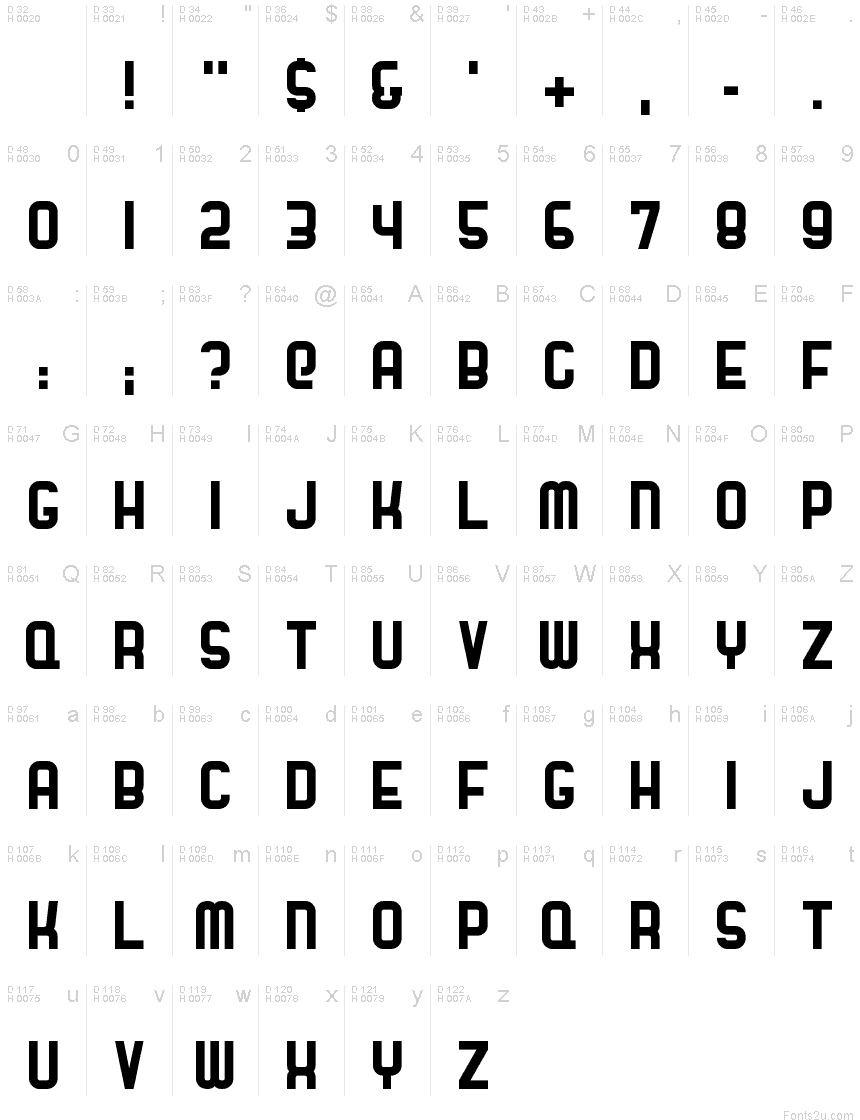
Stadium by Matthew Welch is a free retro display font with towering, tightly drawn capitals and a strong arena-sign character. Its rounded corners soften the otherwise rigid, squared construction. Narrow openings give the letters an emphatic, engineered silhouette.
Sports posters are its clearest home, recalling vintage stadium graphics. It also suits team merchandise and music-event branding, where its compressed proportions make a memorable vertical stamp. Stadium is most convincing when a title should resemble permanent lettering on a scoreboard or venue facade.